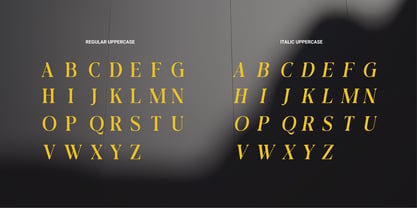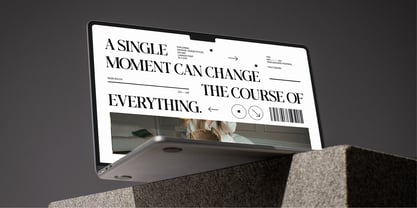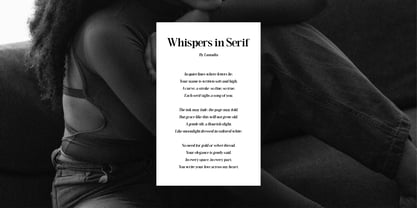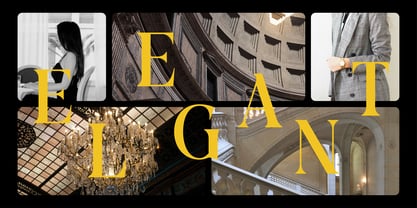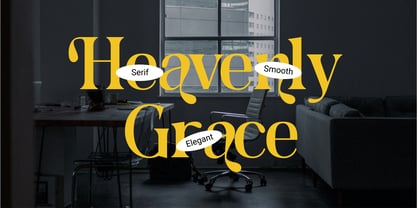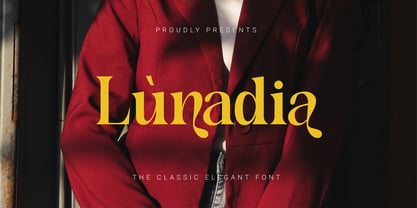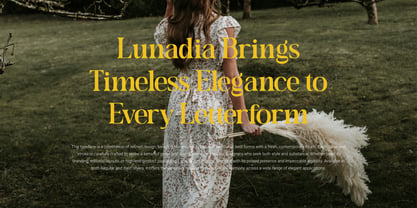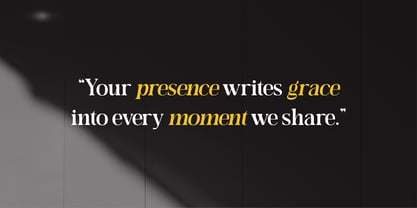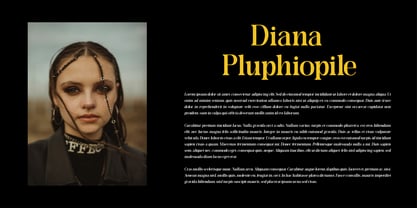
Lunadia
by Muhaco
Lunadia-Classic Elegant Serif Font
Lunadia is a classic elegant serif font with a modern touch. Its refined curves and timeless style make it perfect for luxury branding, fashion logos, magazines, wedding invitations, packaging, and editorial design. Designed to bring sophistication and premium aesthetics, Lunadia is the ideal choice for designers seeking stylish and classy typography.